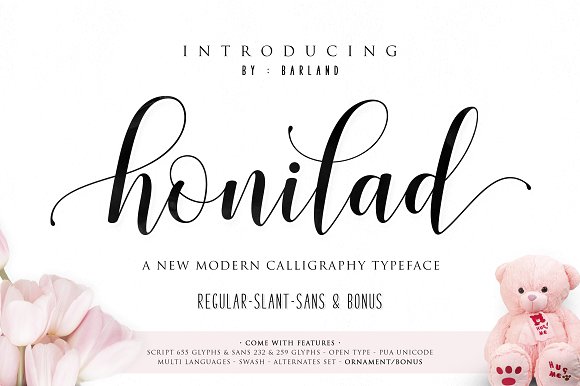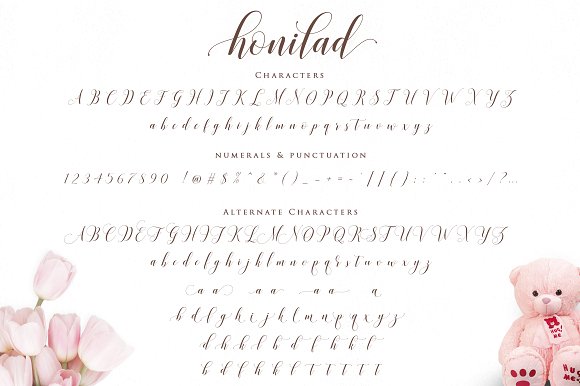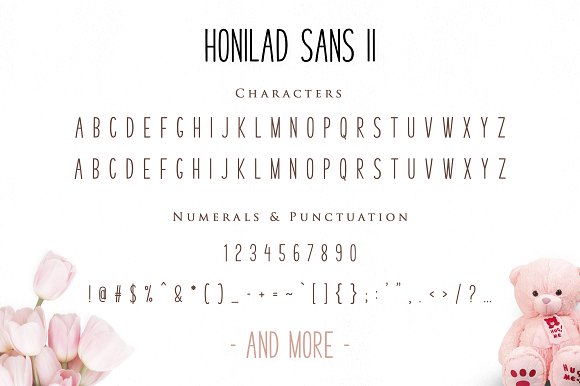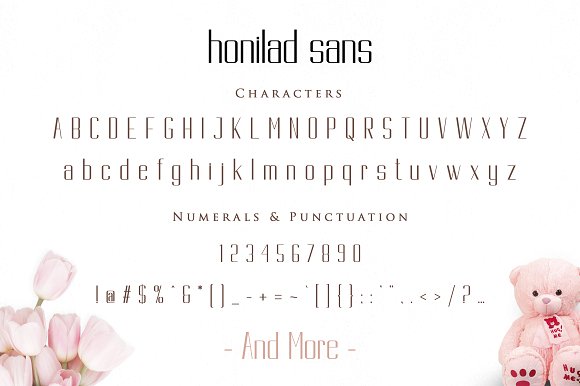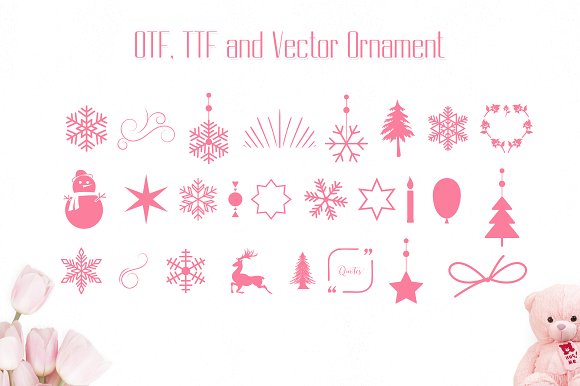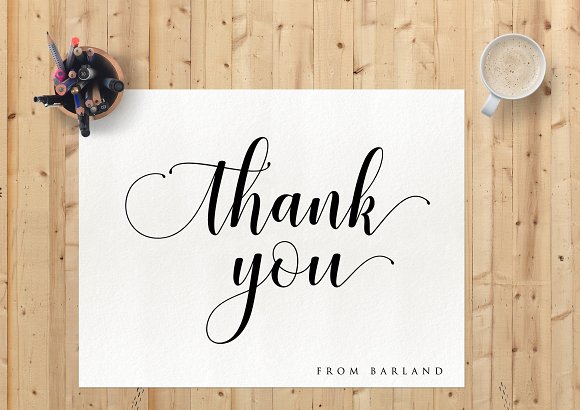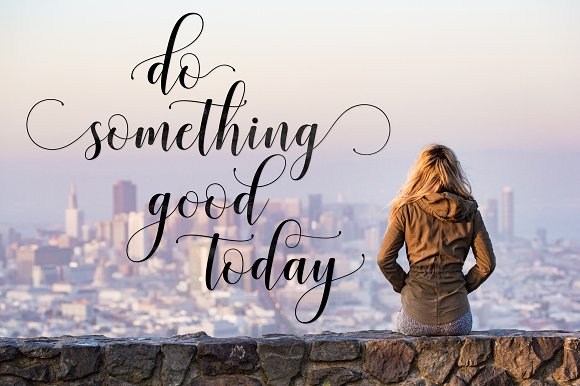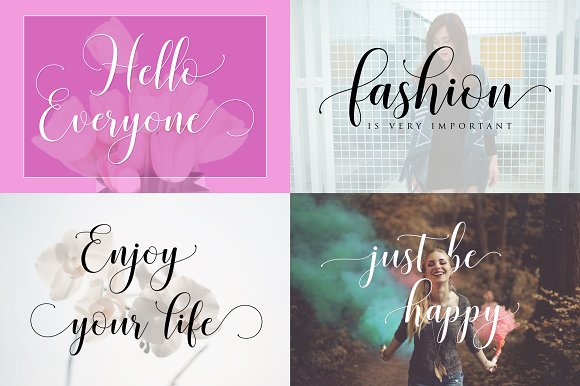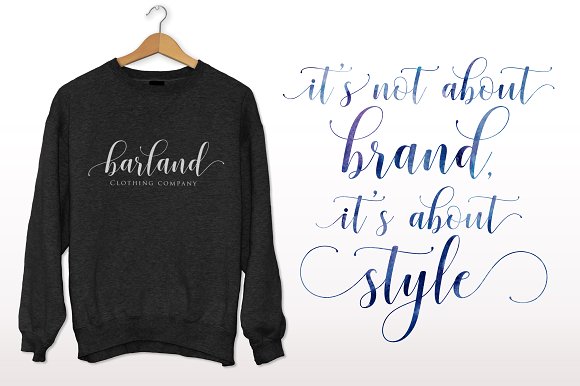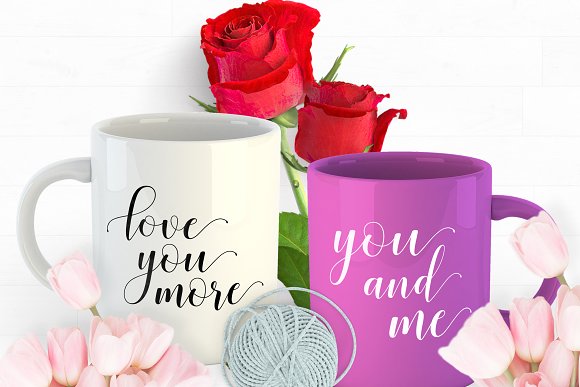
Honilad Font
About Honilad Font
Honilad is a unique blend of classic & modern design. It features imperfect strokes to create a naturally feeling font.
It’s great for many different styles of design.